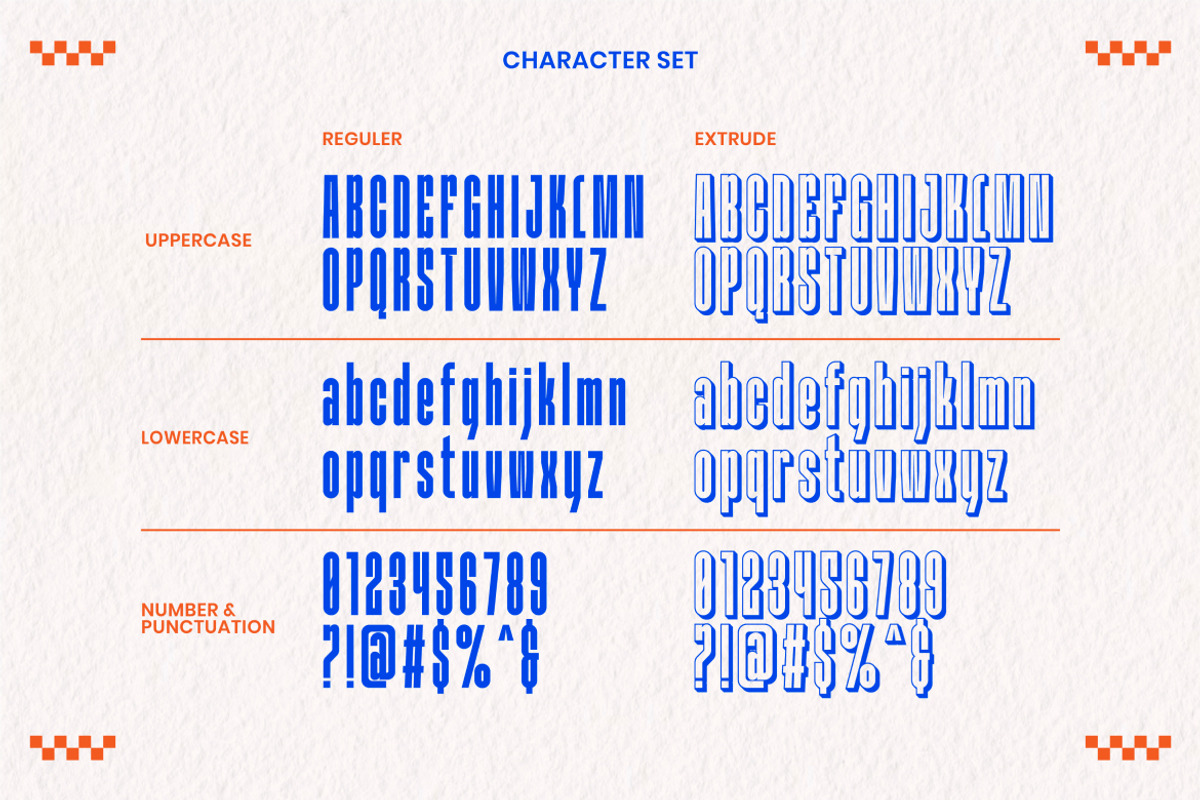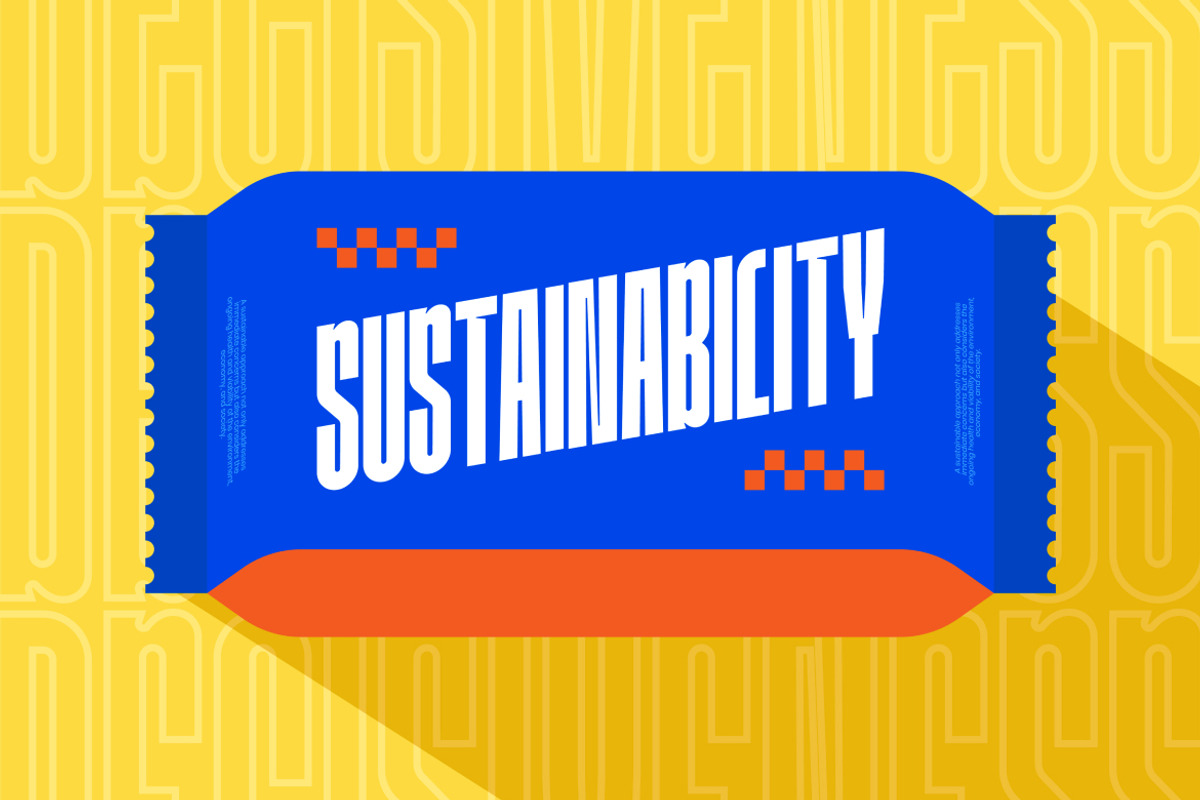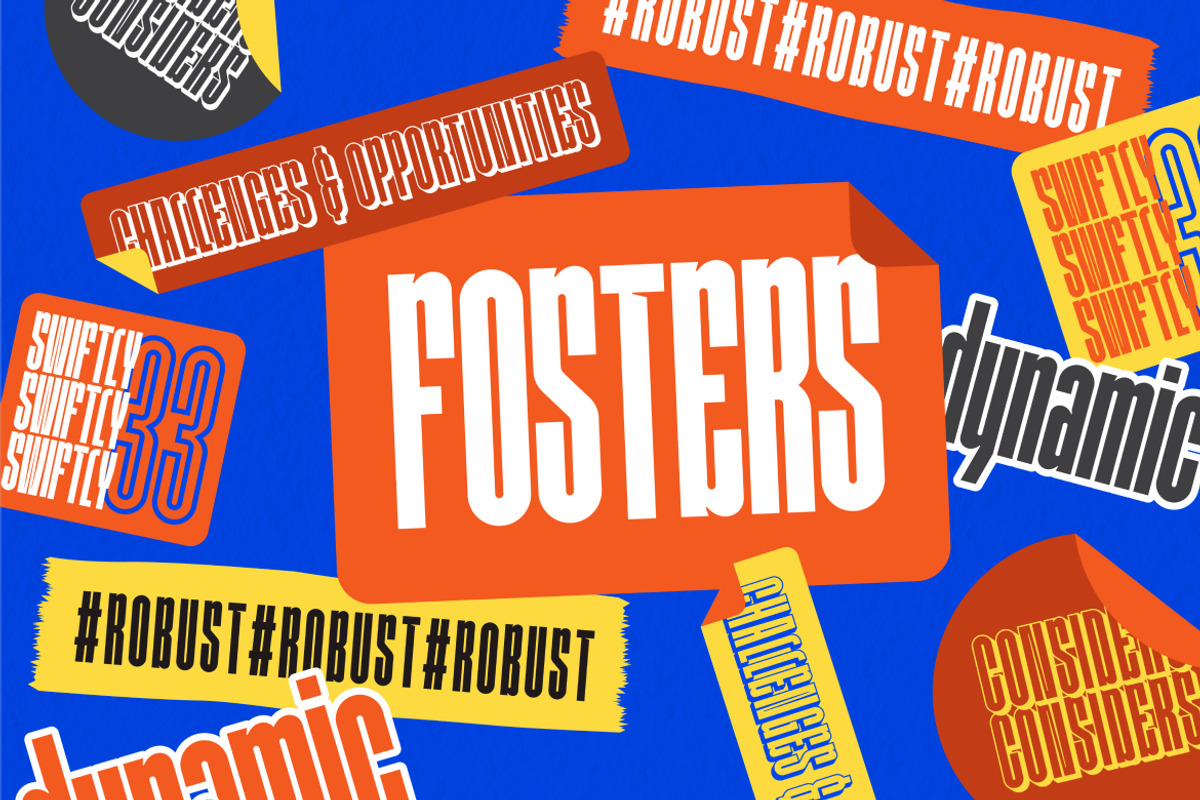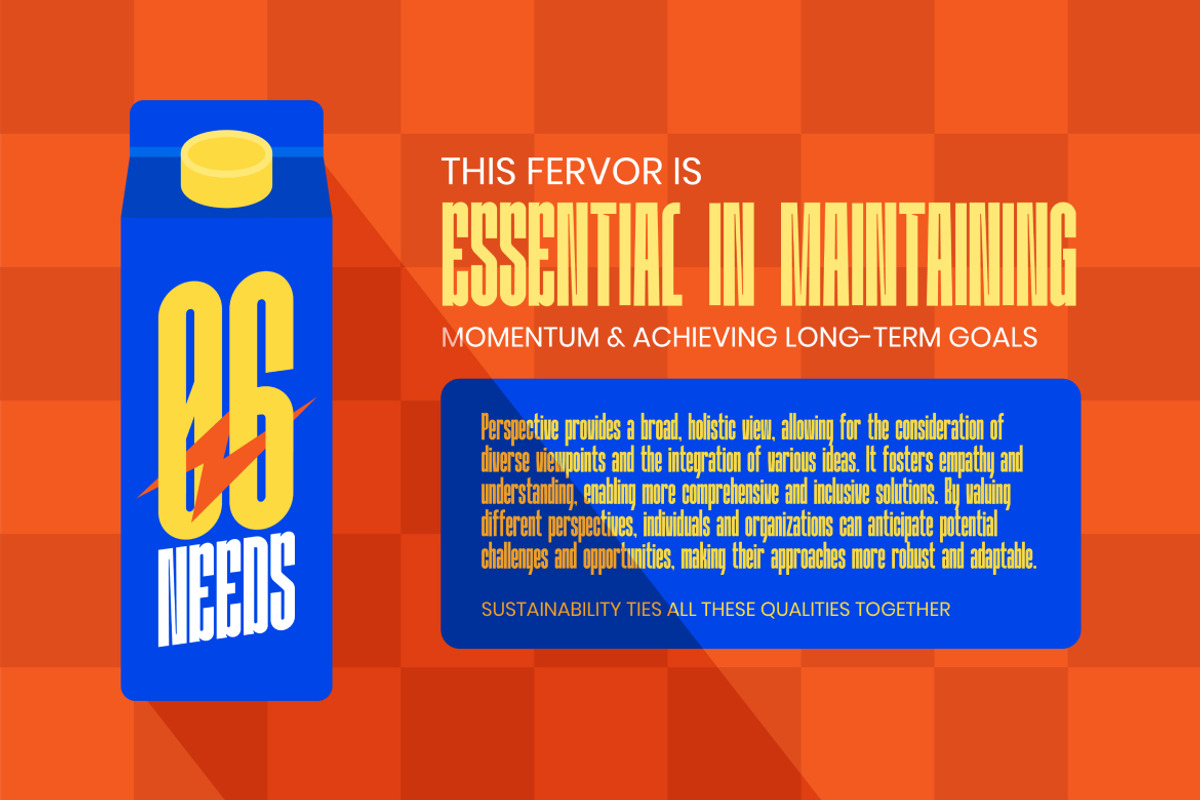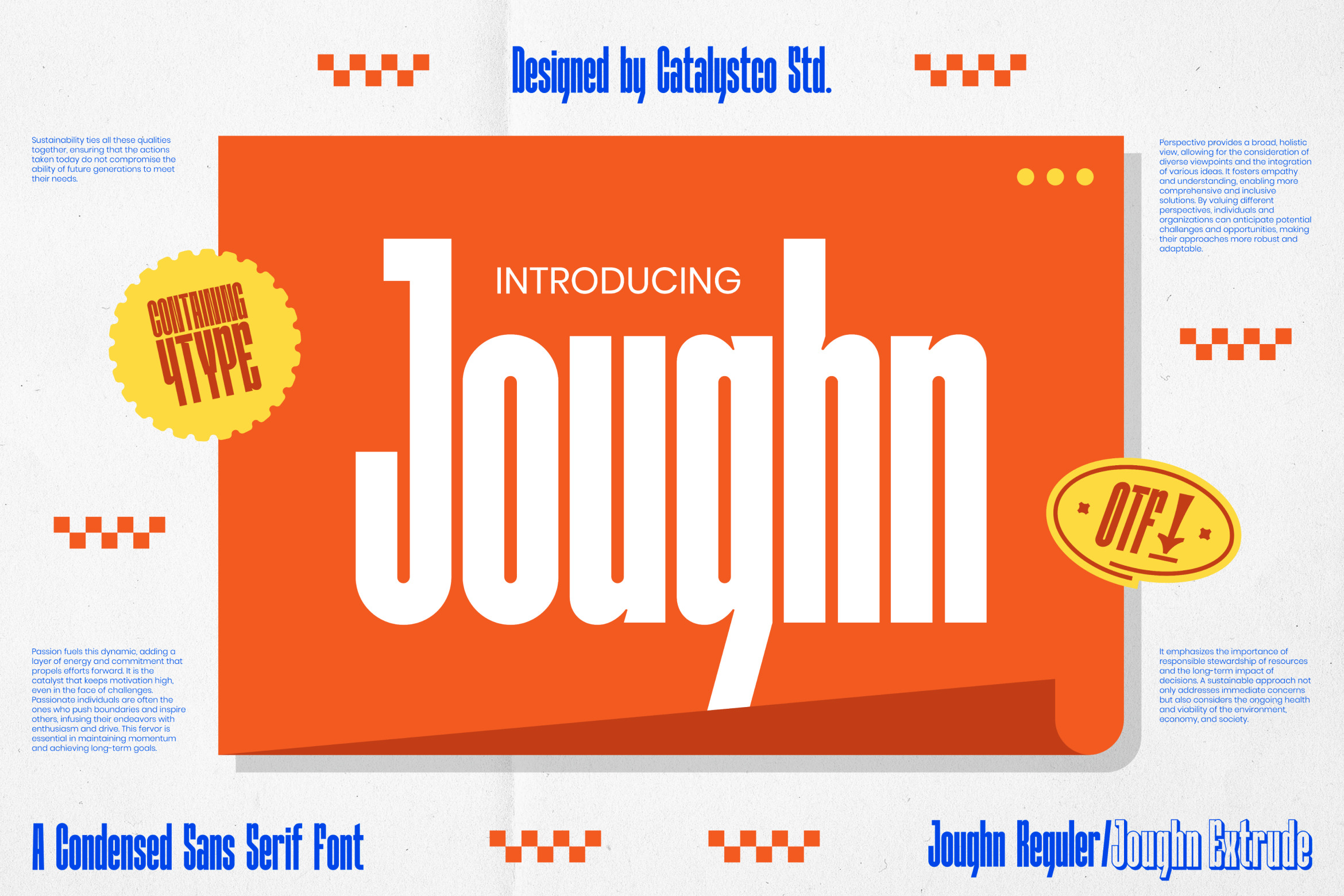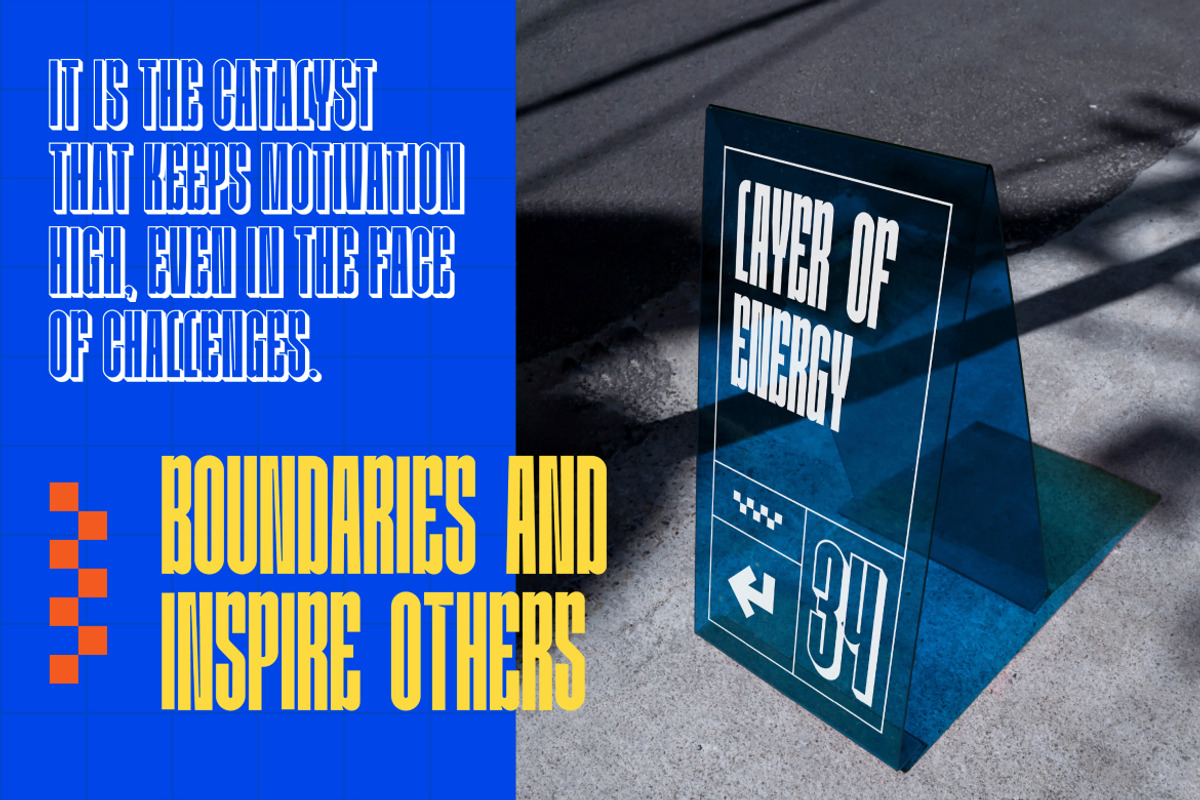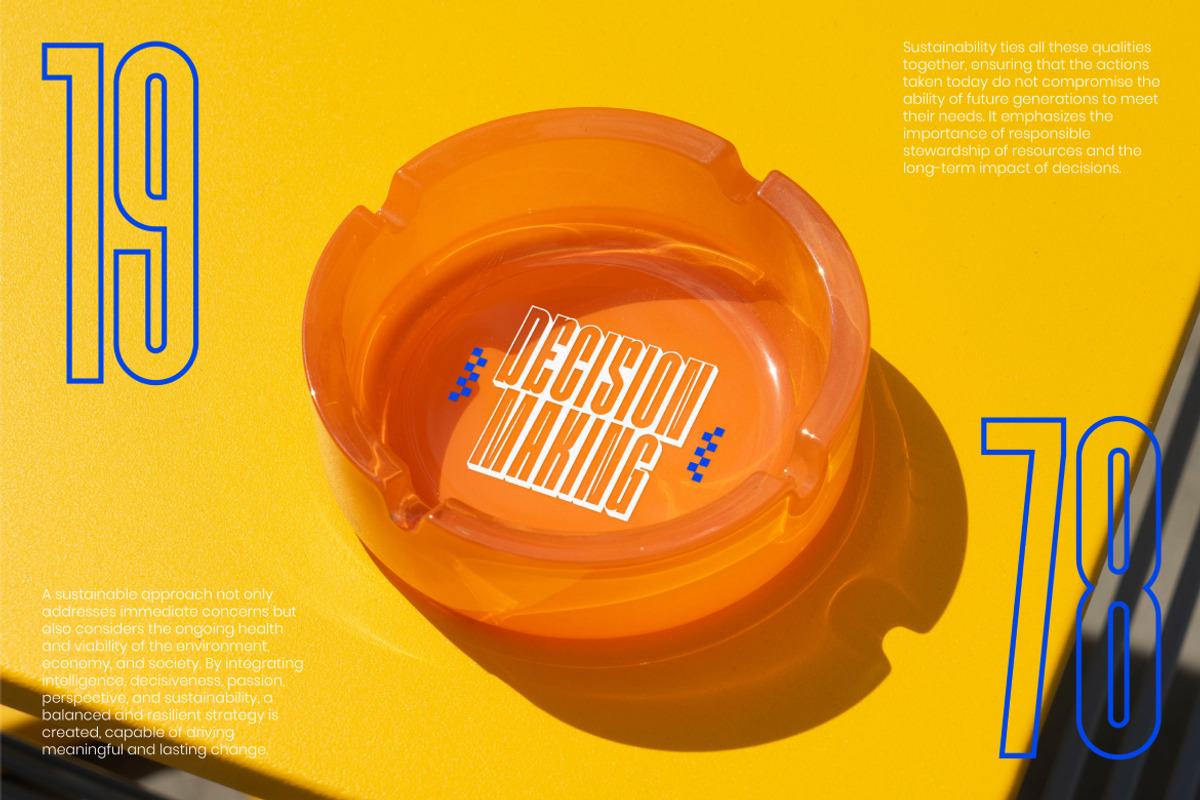
Joughn Condensed Sans Serif Font
Joughn Condensed Sans Serif Font typeface excellent used for the manufacture quote text, logotype, header magazine, and many more.